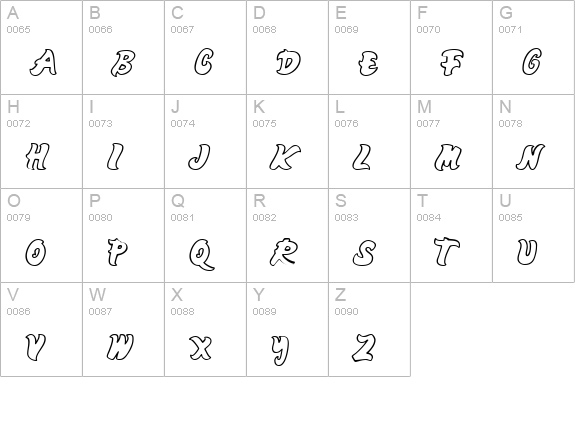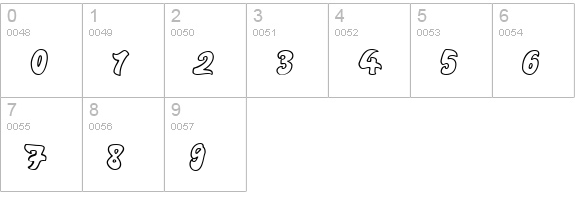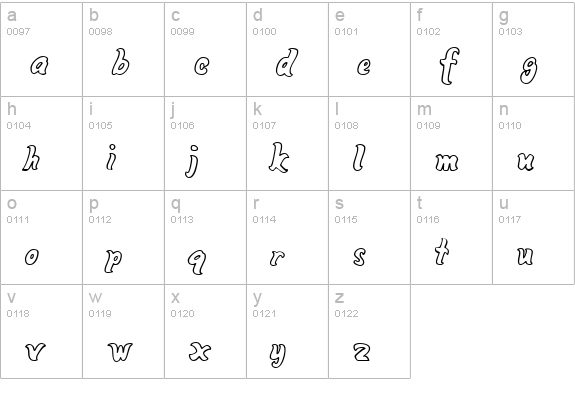
Mango Font Details
Introducing Mango font, a modern and versatile typeface that is perfect for a wide range of design projects. With its sleek lines and elegant curves, Mango font exudes a sense of sophistication and style. This font is designed to make your text stand out and capture the attention of your audience. What's even better is that Mango font is completely free to use! You can easily download this font at FontsMarket.com and start incorporating it into your designs right away. Whether you're working on a branding project, creating promotional materials, or designing a website, Mango font is sure to elevate your work to the next level. Don't miss out on the opportunity to enhance your designs with the beautiful and modern Mango font. Download it for free today at FontsMarket.com and see the difference it can make in your projects.